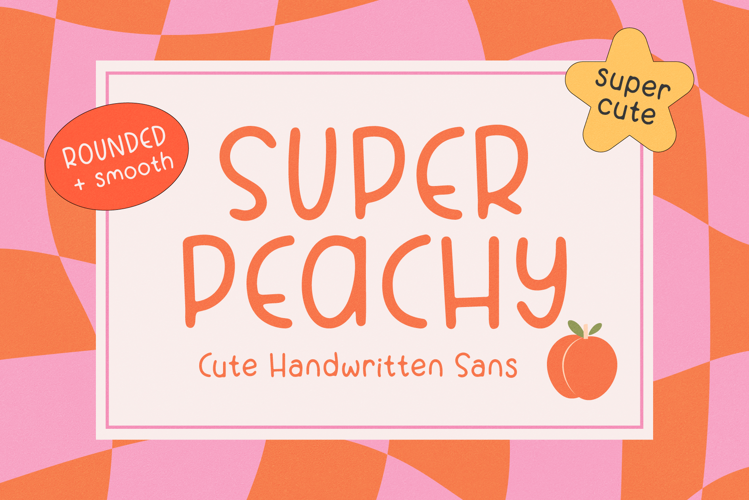
Super Peachy Cute Handwritten Sans Smooth Font
Super Peachy is a cute handwritten sans with an organic, playful vibe. It’s relaxed, quirky, and totally full of feel-good energy.